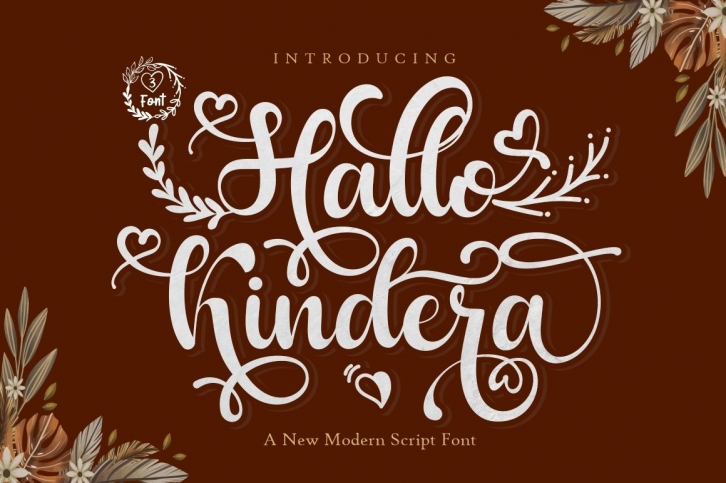
Hallo Kindera is a gorgeous font that was realeased on October 30, 2021. The font can be used in many style contexts and design environments. Perfect for invitations, magazines, websites, logos, and more! It was designed by JS STUDIO and the file size is 4.58 MB. Thanks for checking out this font!